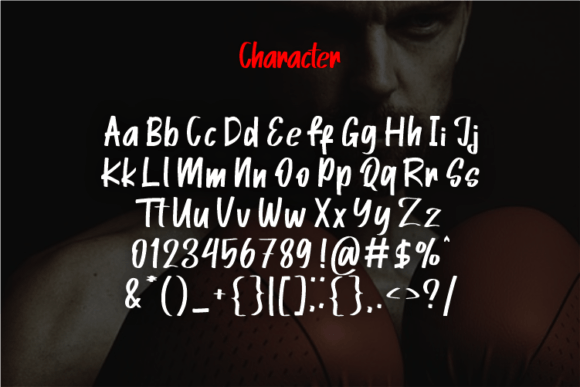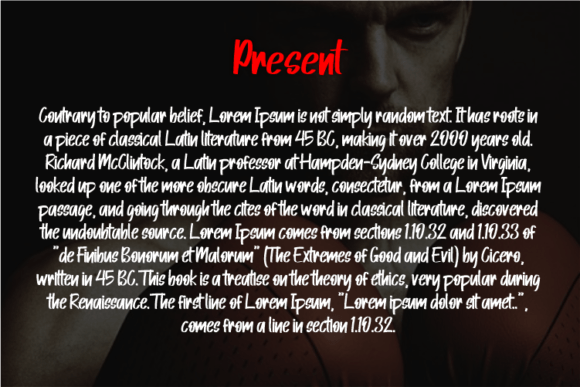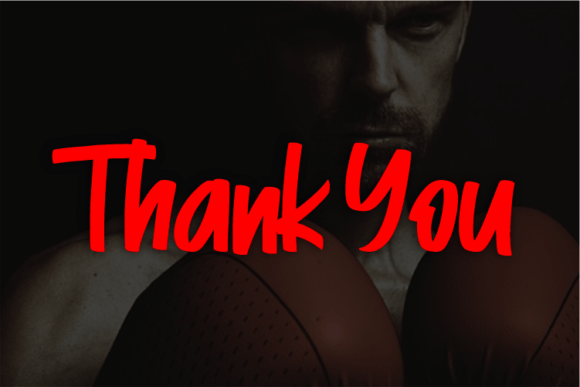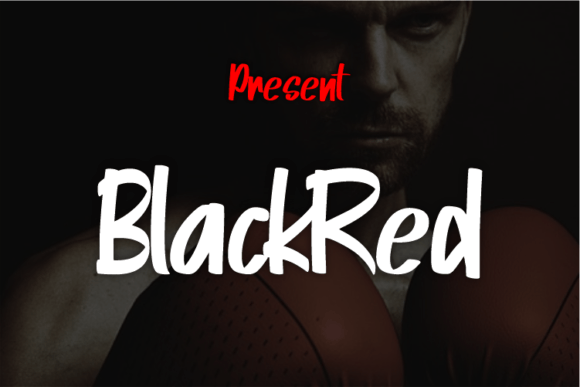
Introducing BlackRed Font: Elevate Your Designs with Elegance and Luxury
In the world of typography, a font can make or break a design. For designers and crafters looking to add a touch of elegance and luxury to their projects, BlackRed Font is an excellent choice. This script typeface boasts a simple yet modern look, making it perfect for a wide range of applications, from logos and titles to fashion brands and quotes.
What is BlackRed Font?
BlackRed is a carefully crafted script typeface that exudes sophistication and refinement. Its simple style belies a modern aesthetic that is sure to turn heads. Whether you’re working on a logo, book or movie design titles, fashion brand, magazine, clothing line, or simply looking for a font to use in your quotes, BlackRed is an excellent choice.
Key Features of BlackRed Font
- Simple yet Modern Look: BlackRed’s design is characterized by its clean lines and minimalist approach, making it perfect for designs that require a touch of sophistication.
- Elegant and Luxurious: The font’s elegant and luxurious feel makes it ideal for high-end designs, such as luxury brands, high-fashion magazines, and upscale clothing lines.
- Script Typeface: As a script typeface, BlackRed adds a touch of personality and flair to any design, making it perfect for titles, quotes, and logos.
- Versatile: BlackRed is a versatile font that can be used in a wide range of applications, from digital designs to print materials.
Use Cases for BlackRed Font
BlackRed Font is perfect for a variety of design projects, including:
- Logo Design: Create a lasting impression with a logo that exudes elegance and sophistication.
- Book and Movie Titles: Add a touch of luxury to your book or movie titles with BlackRed’s elegant and modern look.
- Fashion Brands: Elevate your fashion brand with a font that embodies style and sophistication.
- Magazines and Publications: Use BlackRed to add a touch of elegance to your magazine or publication.
- Clothing Lines: Create a lasting impression with a font that is both stylish and sophisticated.
- Quotes and Typography: Use BlackRed to add a touch of personality and flair to your quotes and typography designs.
Why Choose BlackRed Font?
With so many fonts available, why choose BlackRed? Here are just a few reasons:
- Unique and Distinctive: BlackRed’s simple yet modern look sets it apart from other fonts, making it a great choice for designers looking to create a unique design.
- Elegant and Sophisticated: BlackRed’s elegant and luxurious feel makes it perfect for high-end designs.
- Easy to Read: Despite its elegant and luxurious feel, BlackRed is easy to read, making it perfect for body text and captions.
Tips for Using BlackRed Font
Here are a few tips for getting the most out of BlackRed Font:
- Use it Sparingly: BlackRed is a bold font, so use it sparingly to add emphasis and create visual interest.
- Pair it with Other Fonts: BlackRed pairs well with other fonts, so experiment with different combinations to find the perfect look for your design.
- Experiment with Colors: BlackRed looks great in a variety of colors, so don’t be afraid to experiment and find the perfect color for your design.
In conclusion, BlackRed Font is a versatile and elegant script typeface that is perfect for designers and crafters looking to add a touch of luxury and sophistication to their designs. With its simple yet modern look, BlackRed is sure to elevate your designs and make them stand out from the crowd.